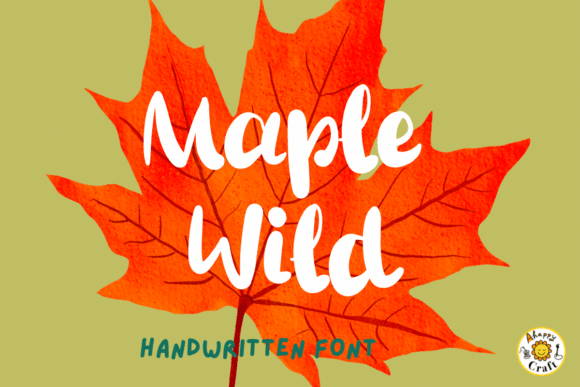
Introduction to Maple Wild Font
Maple Wild is a casual handwritten font that radiates warmth and personality.
Featuring smooth strokes, natural curves, and easy-flowing letterforms, it captures the charm of authentic handwriting with a modern, approachable feel Ideal for quotes, invitations, branding, and social media posts, it adds a personal and friendly touch to any design.
Key Features of Maple Wild Font